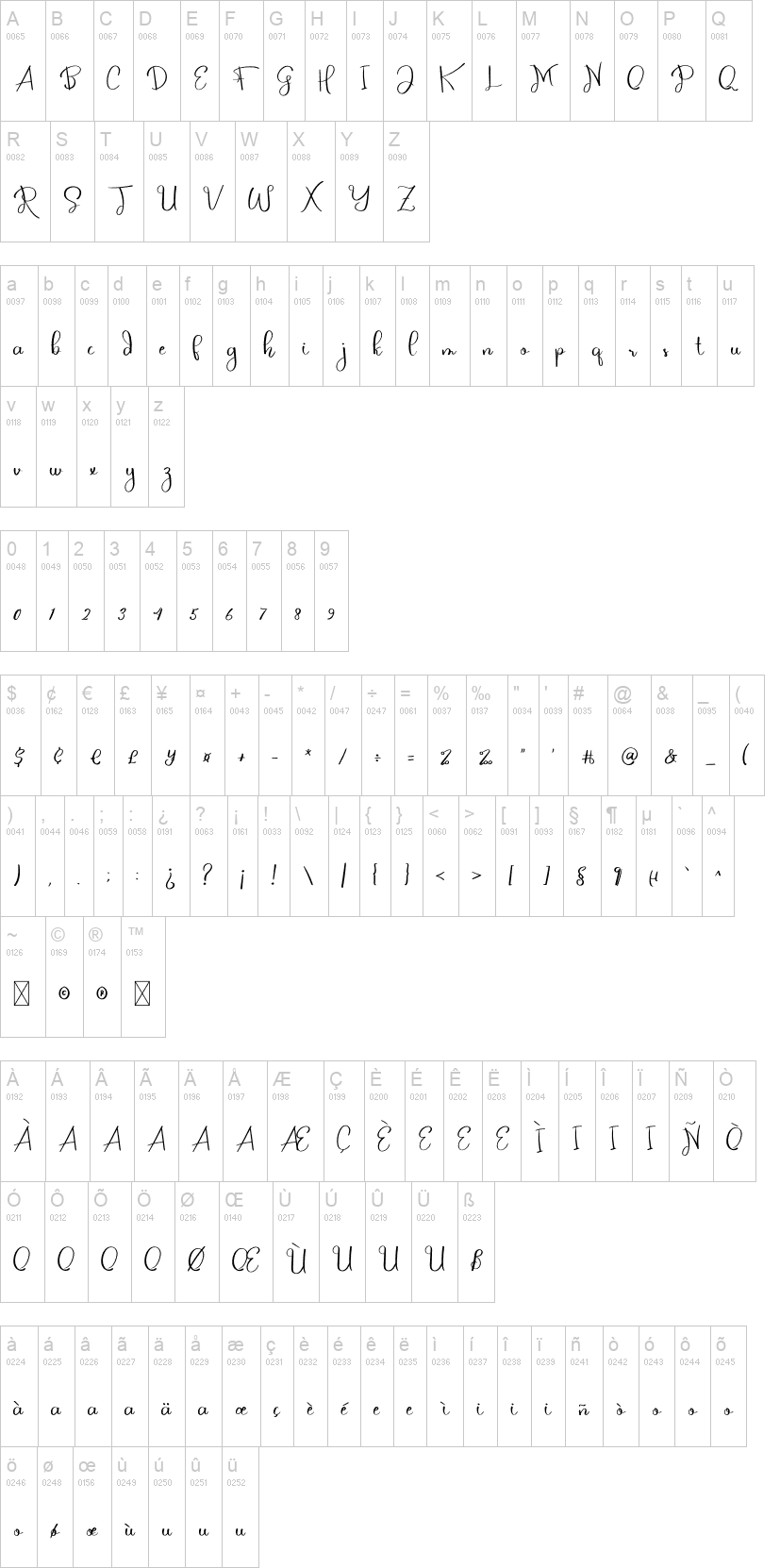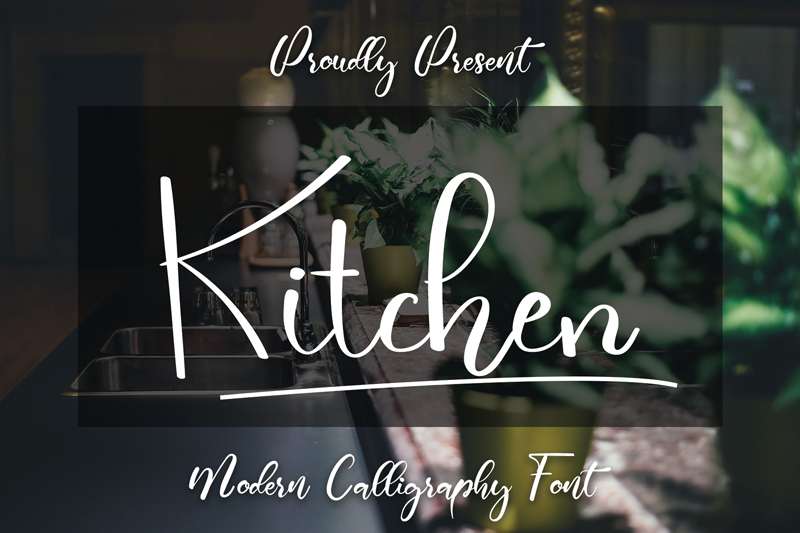
Note of the authorKitchen is a fashionable script font. This font is neatly crafted and highly detailed. Whatever the topic, this font will be a wonderful asset to your font library, as it has the potential to enhance any creation.